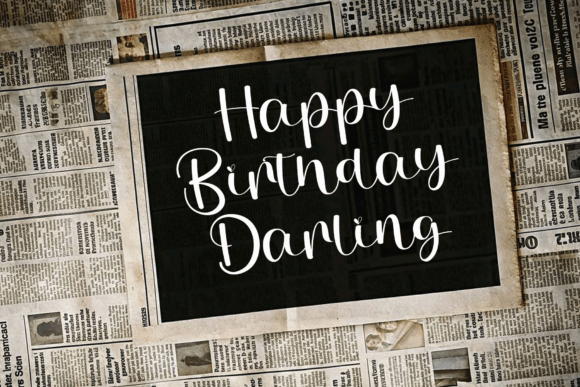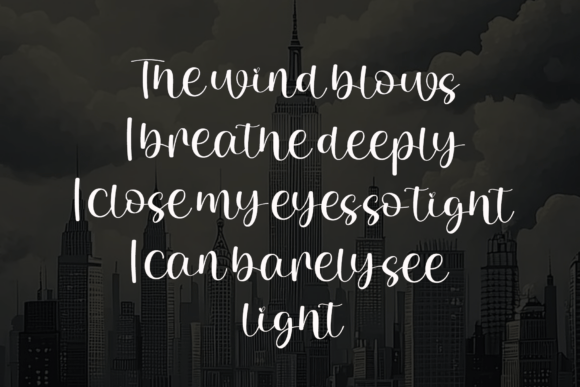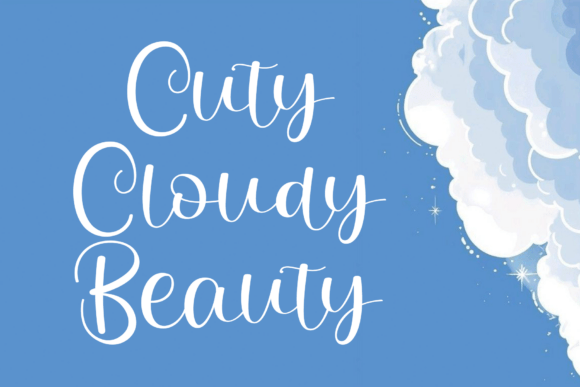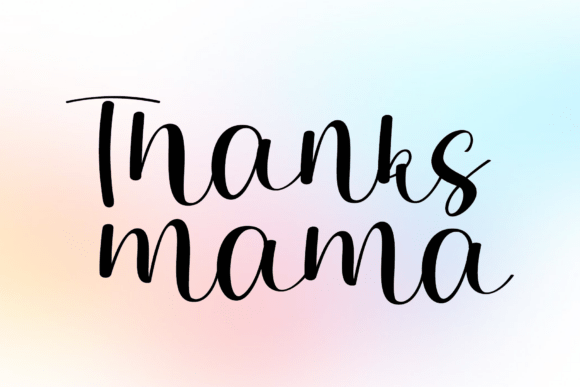
Introduction to Rainbow Enemy Font
Have you ever stared at a blank canvas, struggling to find the perfect font to bring your creative project to life? The blank space stares back, taunting you with its emptiness, until suddenly, a spark of inspiration strikes. In that moment, the Rainbow Enemy Font bursts onto the scene, its bold and expressive handwritten style igniting a fire of creativity within you.
| 👤 Author | pinkmeca |
As a valuable design resource, the Rainbow Enemy Font is a game-changer for designers seeking a high-quality, free download that adds a touch of authenticity to their work. With its dramatic, signature-like presence, this typeface is perfect for family-themed designs, personalized gifts, and custom greeting cards. Its unique flared style, featuring thick vertical strokes and sweeping horizontals, gives it a confident and heartfelt appearance that’s sure to leave a lasting impression.
Whether you’re working on a design project that requires a charismatic, genuine, and impactful handwritten touch or simply want to add a pop of color with a transparent background, the Rainbow Enemy Font is an excellent choice. Its expressive and bold style is sure to elevate your designs to the next level, making it an essential addition to any designer’s toolkit.
Key Features of Rainbow Enemy Font
- High-quality design resource for creative projects, featuring a unique and colorful font style.
- Transparent background option, allowing for easy integration with various design elements and backgrounds.
- High-resolution font, ideal for printing and digital use at 300 DPI or higher.
- Unique and eye-catching design, perfect for adding a touch of personality to any creative project.
Honest Review: Rainbow Enemy Font
I recently stumbled upon the Rainbow Enemy Font, and I have to say it’s been a fun addition to my design projects. The font is perfect for those looking to add a pop of color and whimsy to their work.
- High-quality glyphs and characters
- Transparent background option for seamless integration
- Perfect for creative projects requiring a bold, eye-catching font
- May not be suitable for professional or formal designs
- Limited font sizes and styles available
Overall, the Rainbow Enemy Font is a great addition to any designer’s toolkit. While it may have its limitations, it’s a fun and high-quality font that can add a unique touch to any creative project.
The Rainbow Enemy Font is a high-quality, unique design resource ideal for creative projects. This font features a transparent background, making it versatile and easy to integrate into various designs.
Experiment with different font sizes, colors, and arrangements to create visually appealing designs.
The Rainbow Enemy Font is ideal for:
1. Creative project headers and titles.
2. Designing eye-catching social media graphics.
3. Creating unique presentations and documents.